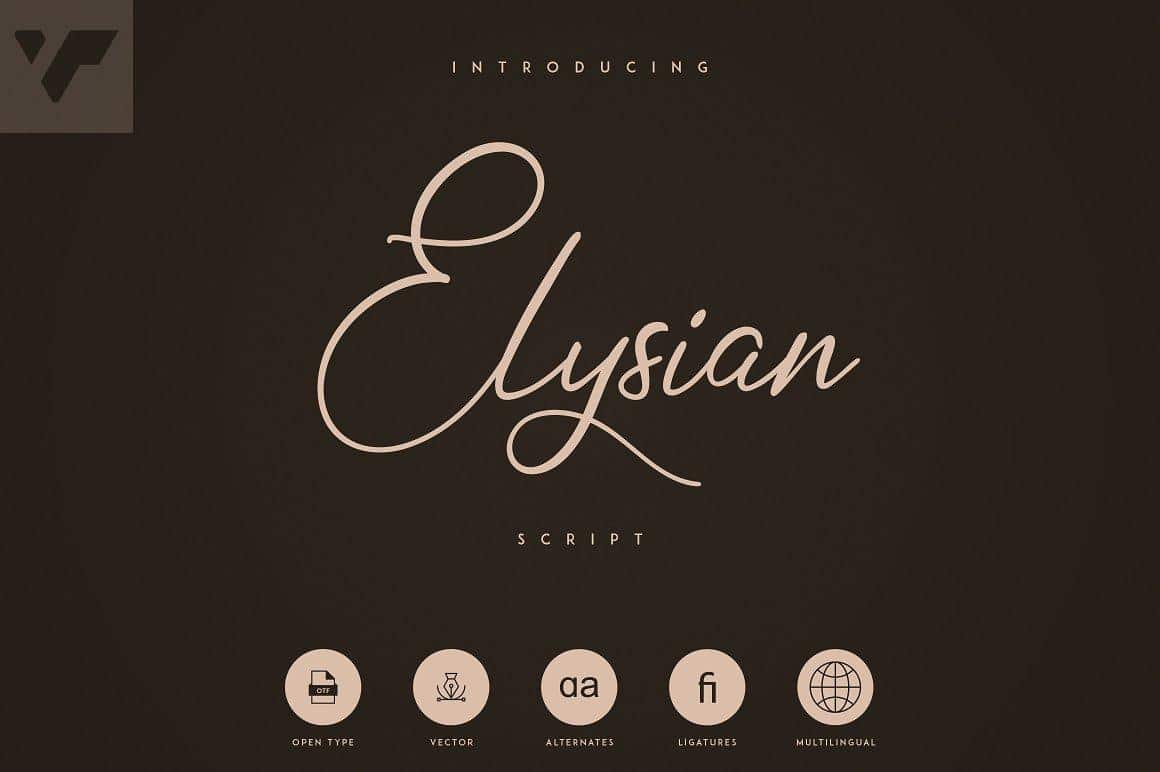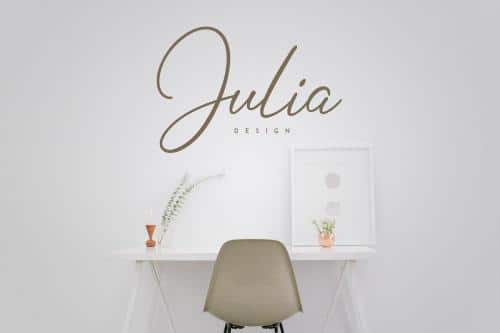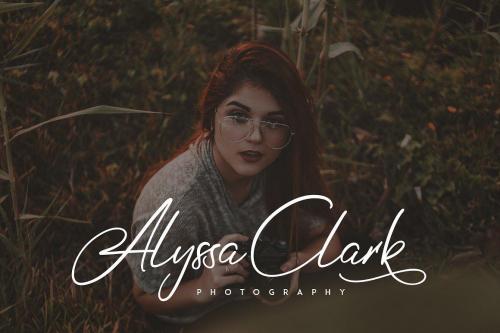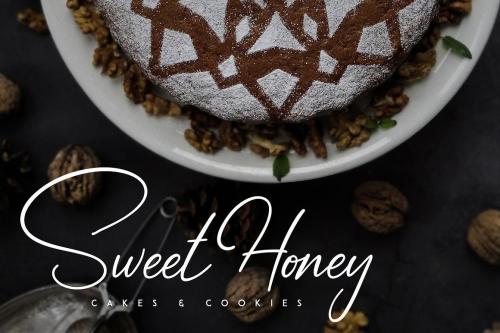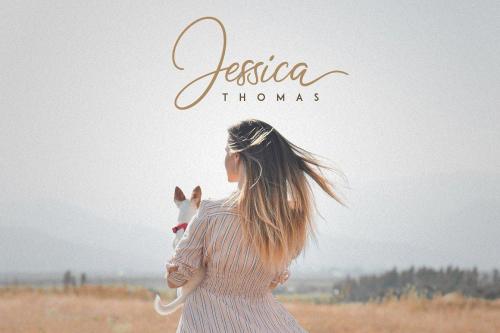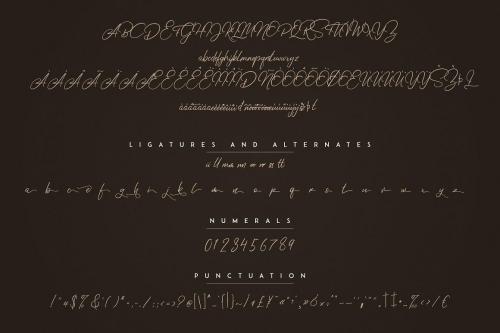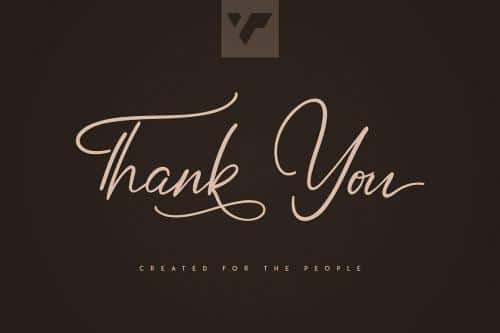
Elysian Script is natural, hand drawn font with alternates, ligatures and multilingual support. It’s a very versatile font that works great in large and small sizes.
Elysian Script is perfect for branding projects, home-ware designs, product packaging, magazine headers – or simply as a stylish text overlay to any background image.
- Designer: VPcreativeshop